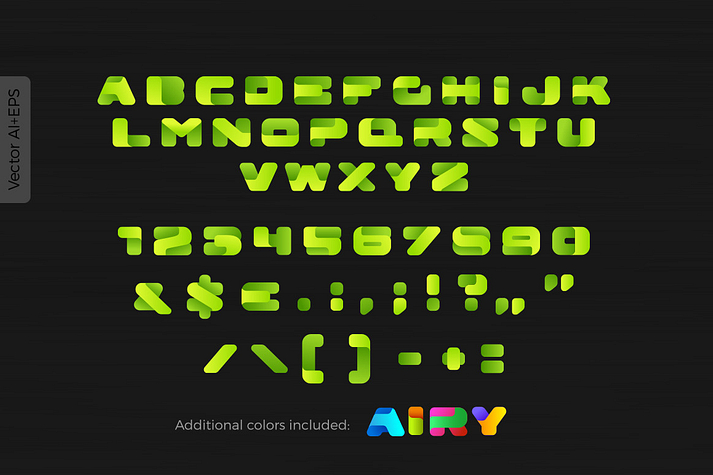
Airy Box
Airy Box is a font family published by Sentavio.
Airy Box is friendly innovative creative font rebound of popular Airy typeface: https://creativemarket.com/Sentavio/560191-Airy-font
Can be used as logo design and branding, titles & headers, posters & banners in such areas as high-tech, internet & computers, business innovations, sport & entertainment etc. Vector Gradient version included